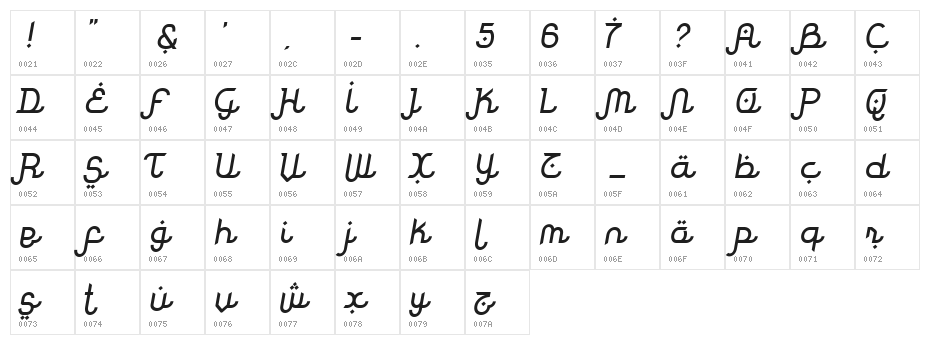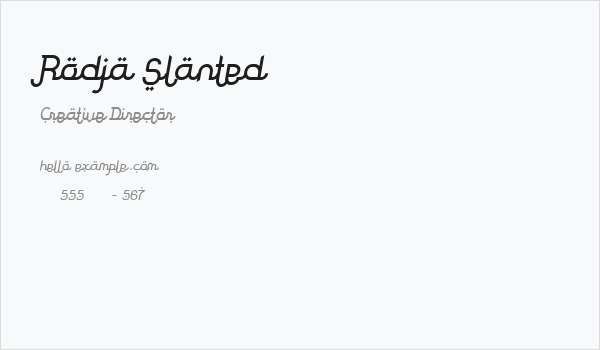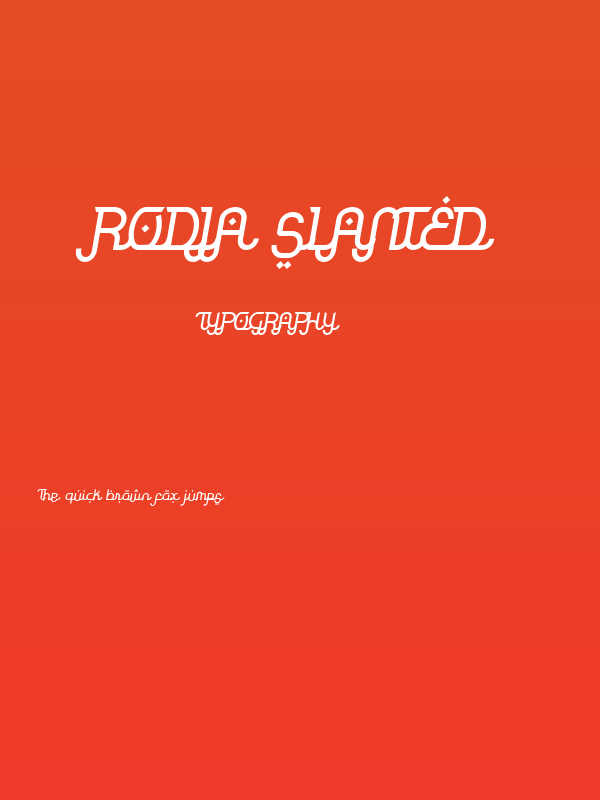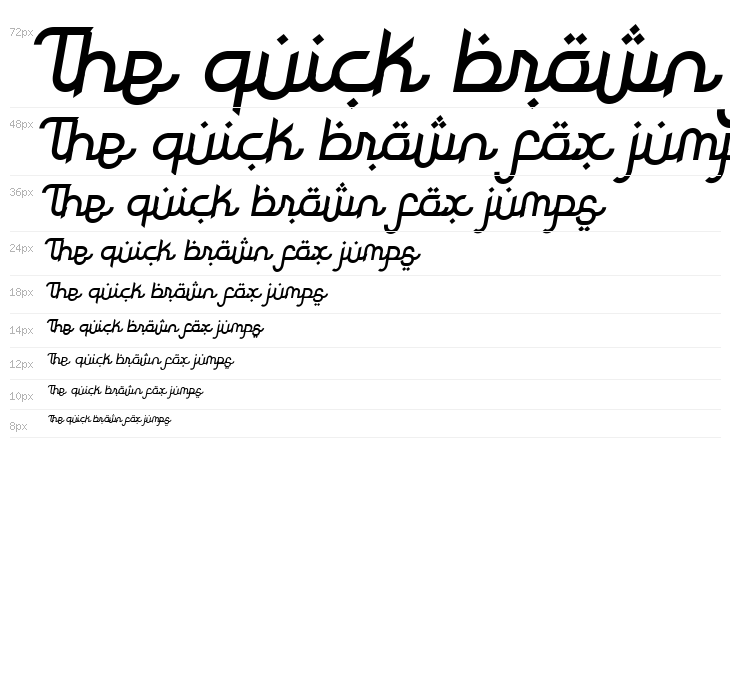
Rodja Slanted Font
Rodja Slanted Description
This font features a dynamic and flowing script style with a distinct slant, giving it a sense of motion and elegance. The characters are interconnected with smooth curves and loops, creating a cohesive and stylish appearance. The uppercase letters maintain a consistent height, while the lowercase letters exhibit a playful yet sophisticated design. The numbers are bold and clear, ensuring readability. Special characters are integrated seamlessly, maintaining the overall aesthetic. This font's unique style makes it suitable for creative and expressive design projects.
| Use Case | Logos, Headlines, Artistic designs |
| Proposed Projects | Ideal for branding, invitations, greeting cards, and artistic posters. |